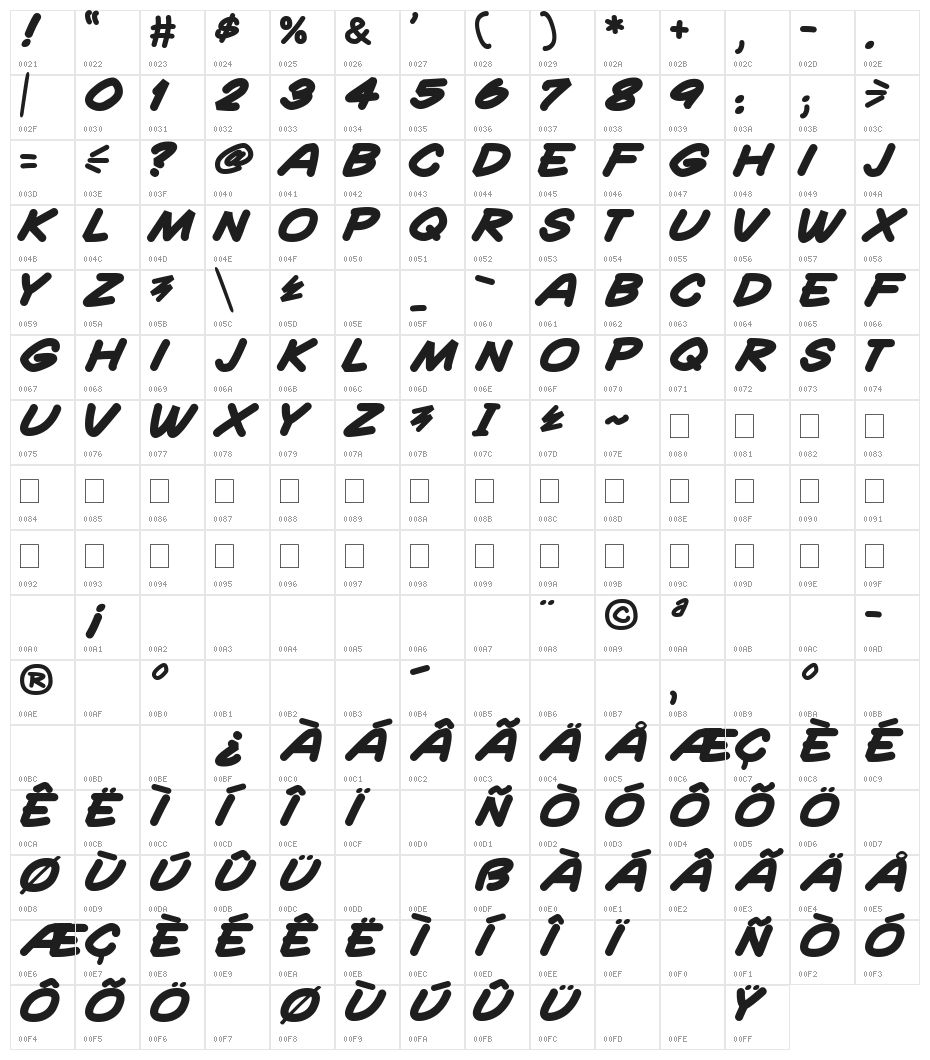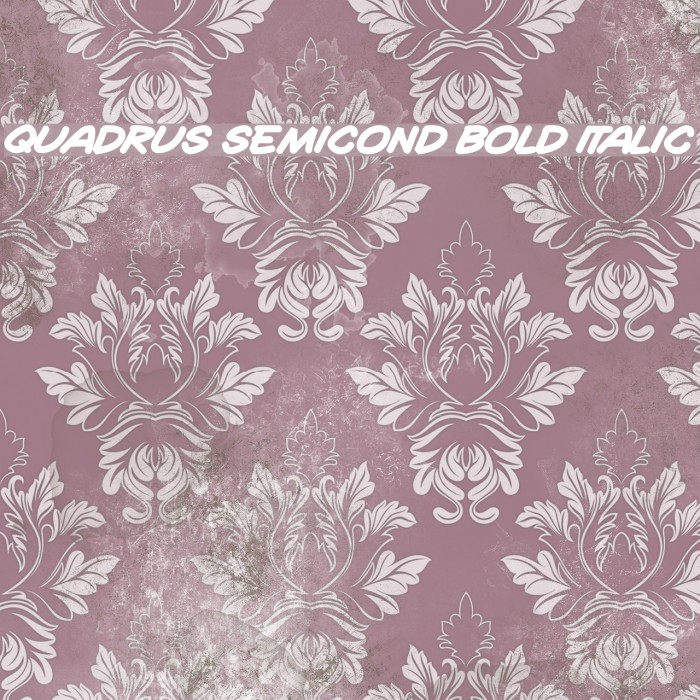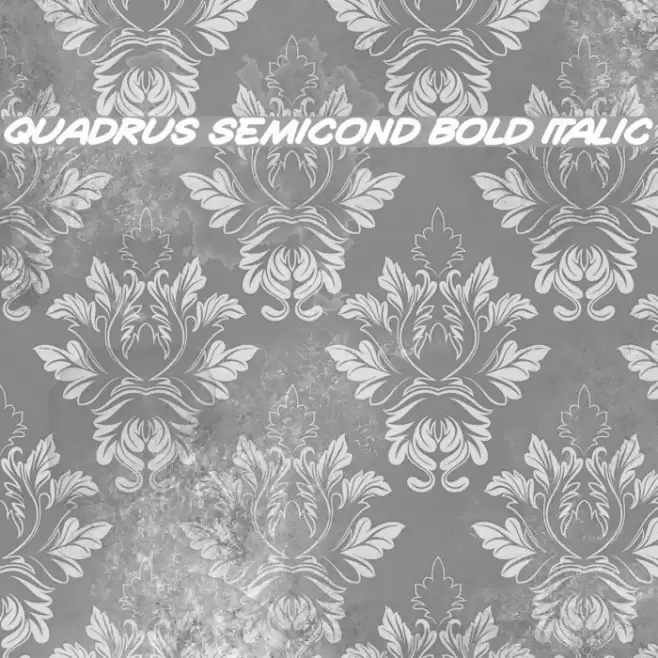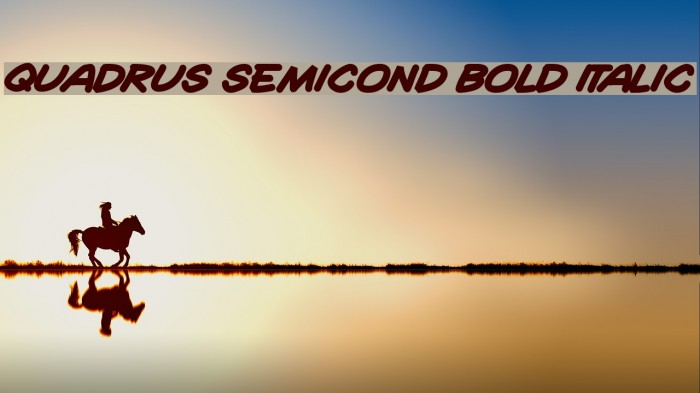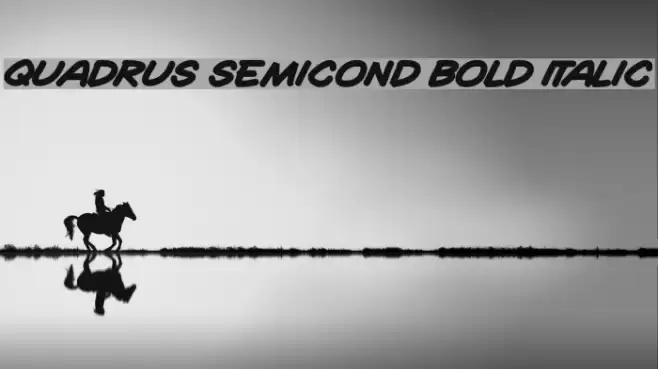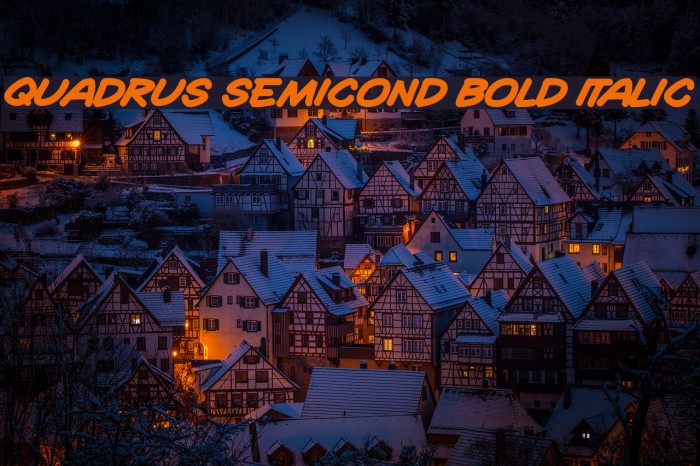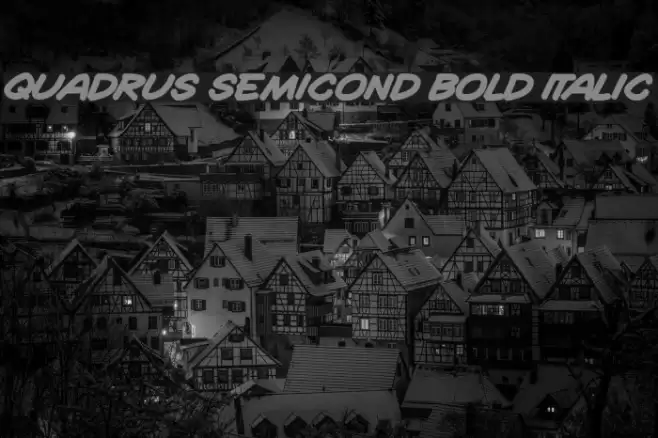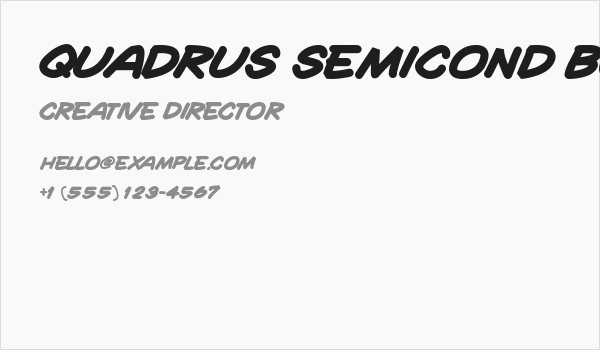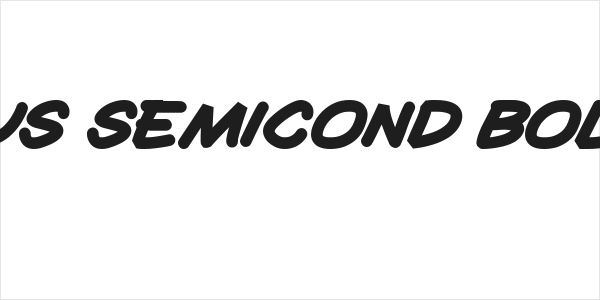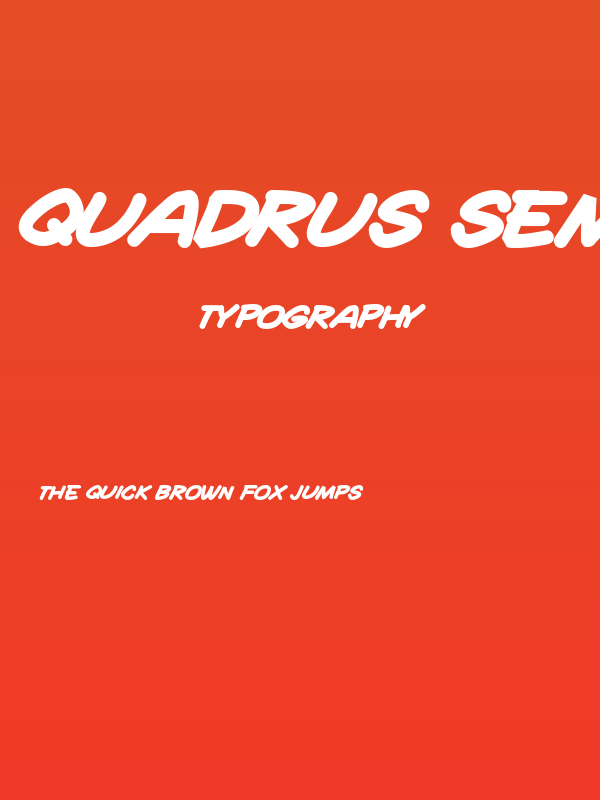
Quadrus Semicond Bold Italic Font
Quadrus Semicond Bold Italic Description
This font features a bold and italicized style with a semi-condensed width, giving it a dynamic and energetic appearance. The characters are crafted with a smooth, flowing design that suggests movement and fluidity. The uppercase and lowercase letters maintain a consistent stroke weight, enhancing readability while adding a touch of flair. The numbers and special characters follow the same stylistic cues, ensuring a cohesive look across all glyphs. The font's boldness and slant make it particularly eye-catching, suitable for making a strong visual impact.